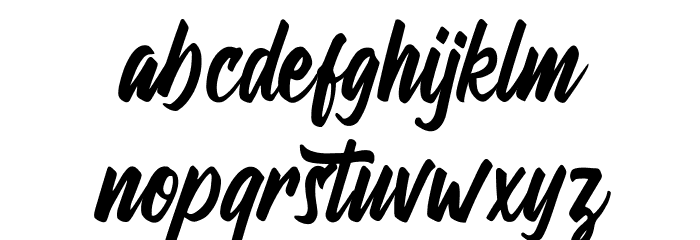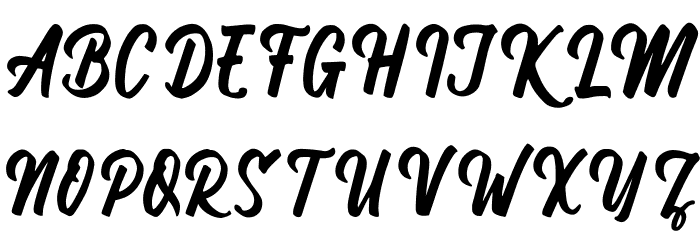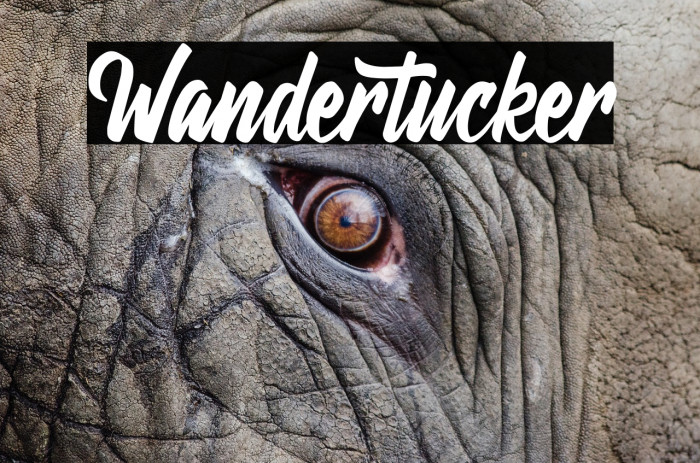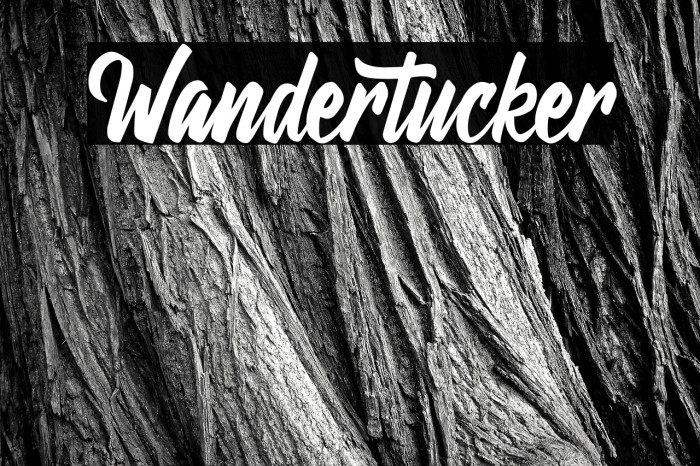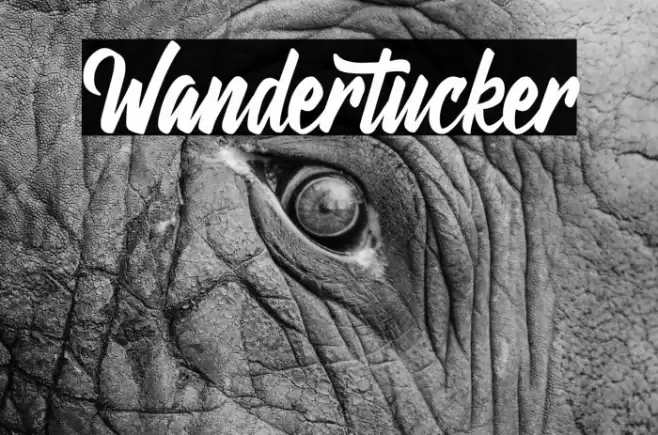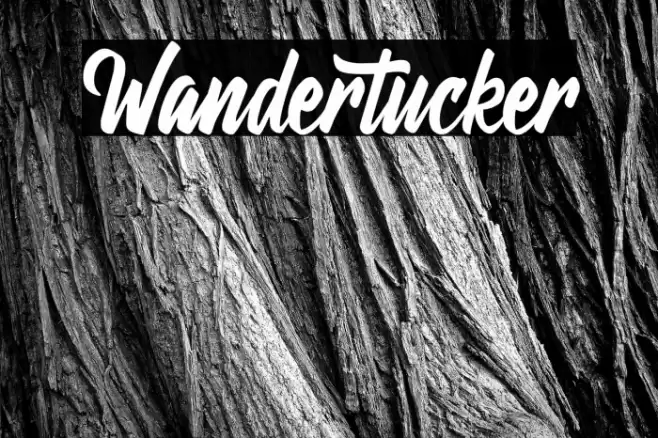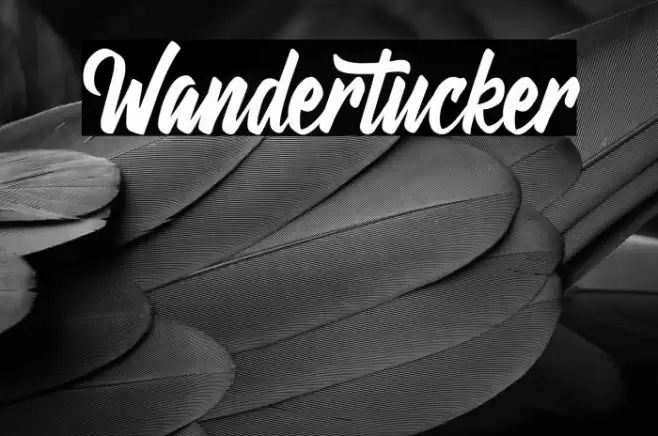
Wandertucker Font
This font features a bold and dynamic script style with a strong presence. The characters are designed with a slight slant, giving them a sense of motion and fluidity. The strokes are thick and consistent, providing a robust and confident appearance. The uppercase letters are particularly striking, with elegant curves and flourishes that add a touch of sophistication. The lowercase letters maintain the same boldness, ensuring readability while retaining the decorative elements. The font's overall style is modern yet classic, making it versatile for various design applications. The spacing between characters is tight, which enhances the cohesive look of the text.
A bold, dynamic script font with elegant curves and a modern classic style.
- Proposed Projects: Ideal for branding, logo design, headlines, and invitations where a strong, stylish impact is desired.
- Category: Script
- Character Spacing: Tight
- Overall Style: Modern Classic
- Use Case: Logos, Headlines, Invitations